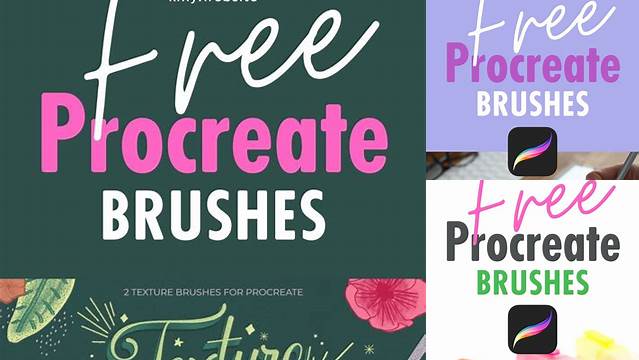
Free Procreate Font Brushes: Download Now!
Hey guys! Ever wanted to add some seriously cool lettering to your Procreate artwork? You're in the right place! We're diving deep into the world of Procreate font brushes free download, and trust me, there's a treasure trove of amazing resources out there just waiting for you. Whether you're a seasoned digital artist or just starting out, having the right font brushes can seriously level up your designs. We'll explore where to find these gems, how to install them, and even give you some tips on using them effectively. So, grab your Apple Pencil and let's get started!
1. Understanding Procreate Brushes for Fonts
Let's kick things off by understanding what we mean by "Procreate brushes for fonts.” Unlike traditional font files that you install on your system, these brushes allow you to hand-letter text directly in Procreate. Think of it as calligraphy, but in the digital world. Procreate font brushes free download options come in various styles, from elegant scripts to bold sans-serifs, each offering a unique texture and feel. This gives you incredible control over the look of your text, making it perfect for logos, illustrations, and more. Using brushes for fonts in Procreate allows for customization that you simply can't achieve with standard digital fonts. You can adjust pressure sensitivity, stroke width, and even add textures, giving your lettering a truly unique and handmade feel. This approach is especially powerful for projects where you want to convey a personal touch or a sense of authenticity. The flexibility that these brushes offer makes them an essential tool in any digital artist's toolkit.
2. Where to Find Free Procreate Font Brushes
Now for the fun part – where do you actually find these amazing brushes? The good news is, there are tons of resources online offering Procreate font brushes free download. Websites like Creative Market, Brush Galaxy, and even individual artist blogs are great places to start. Keep an eye out for freebie sections or promotional offers. Social media platforms like Instagram and Pinterest are also goldmines for discovering free brushes. Many artists share their creations as freebies to build their following. Always double-check the licensing terms before using any brush, especially for commercial projects. You want to make sure you're allowed to use it in the way you intend. A little research upfront can save you a lot of headaches down the road. Also, consider joining online communities and forums dedicated to Procreate users. These communities often share tips, resources, and even create their own brushes to share with the group. It's a fantastic way to connect with fellow artists and expand your brush collection.
4. Best Free Script Font Brushes for Procreate
For those elegant, flowing lettering styles, script fonts are a must-have. There are some fantastic Procreate font brushes free download options available in this category. Look for brushes that mimic traditional calligraphy pens or brush pens. These will give you those beautiful, varied strokes that are characteristic of script lettering. Some popular styles include calligraphy scripts, brush scripts, and even more modern, handwritten-style scripts. When using script brushes, pay attention to the connections between letters. A smooth, flowing connection is key to creating a visually appealing script. Experiment with different pressures and angles to achieve the desired effect. Don't be afraid to practice – script lettering takes some time to master! You can also find brushes that include ligatures and swashes, which are decorative elements that add extra flair to your script lettering. These can be a great way to add personality and uniqueness to your designs. Just remember to use them sparingly, as too many ligatures and swashes can make your lettering look cluttered.
5. Top Free Sans-Serif Font Brushes for Procreate
Need something clean and modern? Sans-serif fonts are your go-to. Luckily, there's a great selection of Procreate font brushes free download in this category too. Sans-serif fonts are characterized by their lack of serifs (the little feet or strokes at the end of the letters), giving them a more streamlined appearance. These fonts are perfect for logos, headings, and body text. Look for brushes that create crisp, clean lines and consistent stroke widths. Some popular sans-serif styles include geometric sans-serifs, humanist sans-serifs, and even more condensed or extended styles. When using sans-serif brushes, pay attention to the spacing between letters. Consistent spacing is crucial for readability and a professional look. Experiment with different weights and styles to find the perfect brush for your project. You can also use sans-serif brushes to create interesting graphic elements or patterns. Their clean lines and shapes make them ideal for creating abstract designs or adding visual interest to your layouts.
6. Free Serif Font Brushes for Procreate: A Touch of Elegance
If you're aiming for a classic or traditional feel, serif fonts are the way to go. And yes, you can find amazing Procreate font brushes free download that capture the elegance of serif typefaces. Serif fonts are characterized by the small decorative strokes (serifs) at the ends of the letters. These serifs add a touch of formality and sophistication, making them perfect for headings, body text, and designs that need a timeless quality. When searching for serif brushes, look for options that mimic the look of traditional typefaces like Times New Roman or Garamond. Pay attention to the details of the serifs – their shape and size can greatly influence the overall look of your lettering. Using serif brushes in Procreate allows you to create a hand-lettered version of a classic typeface, giving your work a unique and personal touch. Experiment with different weights and styles to find the perfect serif brush for your project. You can also try combining serif lettering with other design elements, such as illustrations or textures, to create a visually rich and interesting composition.
7. Calligraphy Brushes for Procreate: Mastering the Art
For the aspiring calligraphers out there, Procreate is a fantastic platform. And guess what? You can get your hands on some incredible Procreate font brushes free download specifically designed for calligraphy. Calligraphy is the art of beautiful writing, and it involves using specific tools and techniques to create elegant letterforms. In the digital world, calligraphy brushes mimic the look and feel of traditional calligraphy pens, allowing you to create stunning lettering directly on your iPad. When searching for calligraphy brushes, look for options that offer varying stroke widths based on pressure. This is a key feature of calligraphy pens, and it's essential for creating the characteristic thick and thin strokes of calligraphic lettering. Experiment with different brush tips and styles to find the ones that suit your personal style and the project you're working on. Learning calligraphy takes time and practice, but with the right brushes and some dedication, you can create beautiful and expressive lettering in Procreate. Don't be afraid to experiment with different techniques and styles, and most importantly, have fun!
8. Brush Lettering Techniques in Procreate
So you've got your brushes, now it's time to talk technique! Brush lettering in Procreate is all about pressure control. The harder you press, the thicker the stroke. This is what gives brush lettering its signature look. Practice varying your pressure to create those thick downstrokes and thin upstrokes. Think about the natural flow of your hand and the way traditional calligraphy pens work. Experiment with different brush settings in Procreate, such as StreamLine and Size Jitter, to fine-tune the way your brush behaves. StreamLine helps smooth out your strokes, while Size Jitter adds a bit of randomness to the stroke width. There are tons of tutorials online that can guide you through different brush lettering techniques. Don't be afraid to try new things and develop your own unique style. Remember, practice makes perfect! The more you experiment with different brushes and techniques, the better you'll become at creating beautiful and expressive lettering in Procreate. And yes, finding Procreate font brushes free download is the first step, but mastering the technique is where the magic truly happens.
9. Creating Custom Font Brushes in Procreate
Feeling adventurous? Why not create your own font brushes in Procreate? It's easier than you might think! You can start by modifying existing brushes or create one from scratch. Experiment with different shapes, textures, and settings to achieve the look you want. The Brush Studio in Procreate is your playground for creating custom brushes. You can adjust everything from the shape and grain of the brush to its pressure sensitivity and rendering mode. Think about the type of lettering you want to create and design your brush accordingly. Do you want a smooth, flowing script brush? Or a textured, gritty brush for a more vintage feel? You can even import your own textures and shapes to create truly unique brushes. Once you've created your custom brush, don't forget to save it to your Brush Library so you can use it in future projects. Creating your own brushes is a fantastic way to expand your creative possibilities and develop your personal style. Plus, you can even share your creations with the Procreate community! So, if you've been searching for Procreate font brushes free download but haven't found exactly what you need, making your own might be the answer!
10. Mixing and Matching Font Brushes for Unique Designs
One of the coolest things about using font brushes in Procreate is the ability to mix and match different styles. Try combining a script brush for headings with a sans-serif brush for body text. This creates visual contrast and makes your designs more interesting. Experiment with different color palettes and textures to further enhance the look. Don't be afraid to break the rules and try unexpected combinations. You might be surprised at what you discover. Think about the overall mood and message you want to convey with your design. Different font combinations can evoke different feelings and create different effects. For example, a combination of a bold sans-serif and a delicate script can create a modern yet elegant look. Or, a pairing of two contrasting serif fonts can add a touch of vintage charm. When mixing and matching font brushes, pay attention to the hierarchy of your text. Use different sizes and weights to create visual emphasis and guide the viewer's eye. And of course, always ensure that your lettering is legible, no matter how creative you get! Remember those Procreate font brushes free download you found? They're your building blocks for endless design possibilities!
11. Using Textures with Font Brushes in Procreate
Adding textures to your lettering can take it to the next level. Try using textured brushes or overlaying textures on top of your lettering. This can add depth, dimension, and a unique visual interest to your designs. Experiment with different textures, such as paper, canvas, or even grunge textures. You can find free texture packs online or create your own by scanning real-world materials. When using textures, think about the overall style and mood you want to create. A subtle texture can add a touch of realism, while a bold texture can create a more dramatic effect. You can also use textures to create a vintage or distressed look. Experiment with different blending modes in Procreate to see how the texture interacts with your lettering. Blending modes like Multiply, Overlay, and Soft Light can create interesting effects. And of course, don't forget to adjust the opacity of your texture layer to control the intensity of the texture. Using textures with your Procreate font brushes free download options is a fantastic way to add personality and originality to your work.
12. Color Palettes for Procreate Lettering
The colors you choose for your lettering can have a huge impact on the overall look and feel of your design. Experiment with different color palettes to find the perfect combination for your project. Consider the mood and message you want to convey and choose colors that reflect that. For example, warm colors like reds and oranges can evoke feelings of energy and excitement, while cool colors like blues and greens can create a sense of calm and serenity. You can find inspiration for color palettes online using tools like Adobe Color or Coolors. These tools allow you to create custom palettes or browse existing ones. Procreate also has its own color palette features, allowing you to save your favorite colors and create custom palettes within the app. When choosing colors for your lettering, think about contrast. High contrast colors will make your lettering stand out, while low contrast colors can create a more subtle effect. You can also use color to create visual hierarchy, highlighting important words or phrases. So, you've found your Procreate font brushes free download options, now think about how color can enhance your lettering and bring your designs to life!
13. Procreate Lettering for Logos and Branding
Hand-lettered logos and branding elements are super popular right now, and Procreate is an awesome tool for creating them. Using font brushes, you can create unique and memorable logos that stand out from the crowd. When designing a logo, think about the brand's personality and values. Choose a font style that reflects those qualities. For example, a script font might be perfect for a brand that wants to convey elegance and sophistication, while a bold sans-serif font might be a better choice for a modern and energetic brand. Keep your logo design simple and memorable. A logo should be easily recognizable and scalable, meaning it should look good at both large and small sizes. Experiment with different layouts and compositions to find the most effective way to present your brand's name. Consider the colors you use in your logo. Colors can evoke emotions and create associations, so choose colors that align with your brand's message. And of course, make sure your logo is legible! Even the most beautiful lettering won't be effective if people can't read it. So, grab those Procreate font brushes free download, and start creating some killer logos!
14. Creating Digital Typography Art in Procreate
Procreate is a fantastic tool for creating digital typography art. Typography art is the art of arranging type in a visually appealing and expressive way. Using font brushes, you can create stunning typographic compositions that are both beautiful and meaningful. When creating typography art, think about the message you want to convey. Choose words or phrases that resonate with you and that you want to share with others. Experiment with different layouts and compositions to find the most visually interesting way to arrange your text. Consider the size and weight of your lettering. Different sizes and weights can create visual hierarchy and emphasize certain words or phrases. Use color to add visual interest and create a mood. Experiment with different color palettes and blending modes to achieve the desired effect. Don't be afraid to add other design elements, such as illustrations or textures, to your typography art. These elements can enhance the meaning and impact of your message. And most importantly, have fun and let your creativity flow! Those Procreate font brushes free download are your keys to unlocking a world of typographic expression.
15. Procreate Lettering for Social Media Graphics
If you're looking to create eye-catching social media graphics, Procreate lettering is the way to go. Hand-lettered graphics can help your posts stand out in a crowded feed. When designing social media graphics, think about the platform you're designing for. Different platforms have different size requirements and visual styles. For example, Instagram graphics are often square or vertical, while Twitter graphics are typically horizontal. Keep your graphics clean and simple. Social media users are often scrolling quickly, so you want to capture their attention with a clear and concise message. Use bold lettering and strong colors to make your graphics pop. Experiment with different layouts and compositions to find the most visually appealing arrangement. Add your branding elements, such as your logo and website address, to your graphics. This will help people recognize your brand and learn more about your work. Use a consistent style across all your social media graphics to create a cohesive brand identity. And of course, make sure your lettering is legible on all devices, from smartphones to desktops. So, those Procreate font brushes free download you've been collecting? They're about to become your secret weapon for social media domination!
16. Lettering Quotes in Procreate: Inspiration and Motivation
Lettering quotes is a fantastic way to spread inspiration and motivation. Procreate's font brushes make it easy to create beautiful and shareable quote art. Choose quotes that resonate with you and that you think will inspire others. Quotes about positivity, perseverance, and self-love are always popular. Experiment with different lettering styles to find the one that best suits the quote and the message you want to convey. A flowing script font might be perfect for a romantic quote, while a bold sans-serif font might be more appropriate for an empowering quote. Use color to add visual interest and create a mood. Consider the overall tone of the quote and choose colors that reflect that. For example, bright and cheerful colors might be a good choice for a motivational quote, while calming and muted colors might be better for an inspirational quote. Add decorative elements, such as flourishes or illustrations, to enhance the look of your quote art. These elements can add personality and visual interest to your design. Share your quote art on social media to inspire others. Use relevant hashtags to reach a wider audience. And don't forget to credit the original author of the quote! So, those Procreate font brushes free download you've discovered? Use them to spread some positivity and inspiration!
17. Procreate Lettering for Greeting Cards
Creating personalized greeting cards in Procreate is a thoughtful and creative way to show someone you care. And with font brushes, you can add a unique hand-lettered touch. Think about the occasion and the recipient when designing your greeting card. Choose a lettering style that reflects the occasion and the person you're sending the card to. For example, a script font might be perfect for a wedding card, while a fun and playful font might be more appropriate for a birthday card. Choose a color palette that is appropriate for the occasion. Festive colors are great for holidays, while more subdued colors might be better for sympathy cards. Add personal touches to your greeting card, such as the recipient's name or a special message. You can also add illustrations or other design elements to make your card even more unique. Print your greeting card on high-quality paper for a professional finish. You can also have your cards printed at a local print shop. So, next time you need a card, skip the store and use those Procreate font brushes free download to create something truly special!
18. Lettering for Procreate Illustrations
Adding lettering to your Procreate illustrations can enhance your artwork and create a more engaging visual experience. Think about the overall style and mood of your illustration when choosing a lettering style. The lettering should complement the illustration, not compete with it. For example, a whimsical illustration might benefit from a playful script font, while a more serious illustration might call for a classic serif font. Position your lettering carefully within your illustration. Consider the composition and balance of your artwork. You want the lettering to be integrated seamlessly into the overall design. Use color and contrast to make your lettering stand out. You can also use shadows and highlights to add depth and dimension to your lettering. Experiment with different lettering techniques, such as outlining or layering, to create interesting visual effects. Use lettering to tell a story or add context to your illustration. You can also use lettering to create titles, captions, or labels. So, if you've been searching for ways to elevate your illustrations, remember those Procreate font brushes free download and how they can add that perfect finishing touch!
19. Animating Procreate Lettering: Bringing Words to Life
Animating your Procreate lettering can add a dynamic and engaging element to your designs. Procreate's animation features, combined with your font brushes, allow you to bring your words to life. There are several different techniques you can use to animate your lettering, such as frame-by-frame animation, motion graphics, and stop-motion animation. Frame-by-frame animation involves drawing each frame of your animation individually. This technique gives you the most control over your animation, but it can also be time-consuming. Motion graphics involve using software to create animated text and graphics. This technique is often used for creating intros, outros, and other types of video content. Stop-motion animation involves taking a series of still photographs of your lettering and then stringing them together to create the illusion of movement. This technique can be used to create fun and whimsical animations. Experiment with different animation styles and techniques to find the ones that best suit your project. Consider the message you want to convey and choose an animation style that supports that message. Use color and sound to enhance your animation. Add music or sound effects to make your animation more engaging. Remember, practice makes perfect! The more you experiment with animating your lettering, the better you'll become. So, why not take those Procreate font brushes free download for a spin in the world of animation?
20. Lettering on Procreate Photos: Adding a Personal Touch
Adding lettering to your Procreate photos can be a fun and creative way to personalize your images. Whether you're creating social media posts, cards, or just want to add a personal touch to your photos, lettering is a great option. Choose a lettering style that complements the style and mood of your photo. For example, a handwritten script font might be a good choice for a casual photo, while a more formal serif font might be better suited for a portrait. Consider the composition of your photo when placing your lettering. You want the lettering to be integrated seamlessly into the overall design. Use color and contrast to make your lettering stand out. You can also use shadows and highlights to add depth and dimension to your lettering. Experiment with different lettering techniques, such as outlining or layering, to create interesting visual effects. Add a quote, caption, or personal message to your photo. Lettering can be used to convey a message, tell a story, or simply add a personal touch. Share your lettered photos on social media or print them out to create personalized gifts. So, grab a favorite photo and see how those Procreate font brushes free download can transform it!
21. Best Practices for Procreate Font Brush Usage
To get the most out of your Procreate font brushes, there are a few best practices to keep in mind. First, always use high-resolution canvases. This will ensure that your lettering looks crisp and clean, even when zoomed in. Second, experiment with different brush settings. Procreate offers a wide range of brush settings that you can adjust to fine-tune the way your brushes behave. Third, use pressure sensitivity to your advantage. Pressure sensitivity allows you to create varying stroke widths, which is essential for creating dynamic and expressive lettering. Fourth, practice regularly. The more you practice, the better you'll become at using Procreate font brushes. Fifth, don't be afraid to experiment. Try different brushes, techniques, and styles to find what works best for you. Sixth, save your work frequently. This will prevent you from losing your progress if something goes wrong. Seventh, use layers to organize your artwork. This will make it easier to edit and adjust your lettering. Eighth, use clipping masks to add textures and patterns to your lettering. Ninth, use blending modes to create interesting visual effects. Tenth, share your work with others and get feedback. This will help you improve your skills and learn new techniques. And finally, remember that finding the best Procreate font brushes free download is only the first step – it's how you use them that truly matters!
22. Troubleshooting Common Procreate Brush Issues
Even with the best brushes, you might occasionally run into issues with your Procreate font brushes. Here are some common problems and how to fix them. Problem: Brush isn't showing up in your Brush Library. Solution: Make sure you've downloaded the brush file correctly. If it's a .brushset
file, it should automatically import when you open it. If it's a .brush
file, you may need to import it manually by tapping the "+" icon in the Brush Library and selecting "Import.” Problem: Brush strokes are jagged or pixelated. Solution: Make sure you're working on a high-resolution canvas. A canvas size of at least 3000 x 3000 pixels is recommended for lettering. Problem: Brush is too laggy or slow. Solution: Try reducing the number of layers in your artwork. You can also try clearing your Procreate cache in the app's settings. Problem: Brush isn't behaving as expected. Solution: Check your brush settings. Experiment with different settings, such as StreamLine and Size Jitter, to fine-tune the way your brush behaves. Problem: Brush is too big or too small. Solution: Adjust the brush size using the size slider in the Brush panel. You can also use the pressure sensitivity of your Apple Pencil to control the brush size. If you've tried all these solutions and you're still having problems, try restarting Procreate or your iPad. Sometimes a simple restart can fix unexpected issues. And remember, if you've found some amazing Procreate font brushes free download but they're not working perfectly, a little troubleshooting can go a long way!
23. Procreate Font Brushes for Beginners
If you're just starting out with Procreate lettering, it can feel a little overwhelming. But don't worry, it's totally achievable! Here are some tips and advice for beginners. First, start with simple brushes. Don't try to tackle complex brushes with lots of settings right away. Look for basic monoline brushes or brushes with minimal texture. These will be easier to control and will help you get a feel for lettering in Procreate. Second, practice basic strokes. Before you start writing words, practice your upstrokes, downstrokes, and curves. This will help you develop muscle memory and improve your lettering skills. Third, use guidelines. Guidelines can help you maintain consistent letter heights and spacing. You can create guidelines in Procreate by drawing straight lines on a separate layer. Fourth, start with lowercase letters. Lowercase letters are generally easier to letter than uppercase letters. Fifth, be patient. Learning lettering takes time and practice. Don't get discouraged if you don't see results right away. Sixth, watch tutorials. There are tons of great Procreate lettering tutorials online. Watch tutorials to learn new techniques and get inspiration. Seventh, join a community. There are many online communities of Procreate artists where you can share your work, get feedback, and learn from others. Eighth, don't be afraid to experiment. Try different brushes, techniques, and styles to find what you enjoy. Ninth, have fun! Lettering should be a fun and creative activity. And tenth, remember that those Procreate font brushes free download options are a fantastic starting point – but the real magic happens with practice and experimentation!
24. Advanced Techniques for Procreate Lettering
Once you've mastered the basics of Procreate lettering, you can start exploring some more advanced techniques. Adding shadows and highlights: Adding shadows and highlights to your lettering can create depth and dimension. You can create shadows and highlights by duplicating your lettering layer, offsetting it slightly, and changing the color. Creating gradients: Gradients can add visual interest to your lettering. You can create gradients by using the Gradient tool in Procreate or by using gradient brushes. Using textures: Textures can add a unique and tactile feel to your lettering. You can add textures by using textured brushes or by importing texture images and using clipping masks. Creating 3D lettering: You can create 3D lettering effects by using Procreate's perspective tools or by drawing your lettering from different angles. Adding flourishes and embellishments: Flourishes and embellishments can add personality and elegance to your lettering. You can create flourishes and embellishments using brushes or by drawing them by hand. Using lettering to create illustrations: You can use lettering to create illustrations by incorporating words and phrases into your artwork. Creating animated lettering: You can animate your lettering using Procreate's animation features or by using other animation software. These advanced techniques can take your Procreate lettering to the next level. Don't be afraid to experiment and try new things. The possibilities are endless! And remember, finding awesome Procreate font brushes free download is just the beginning – these techniques will help you unleash their full potential!
25. Commercial Use of Free Procreate Font Brushes
One of the most important things to consider when downloading Procreate font brushes free download is the licensing terms. Not all free brushes are created equal, and some may have restrictions on their commercial use. Commercial use refers to using the brushes in projects that you intend to sell or profit from, such as logos, branding materials, or merchandise. Before using any free brush in a commercial project, carefully read the licensing terms provided by the creator. Some creators may allow commercial use with attribution (meaning you need to credit them in your work), while others may prohibit commercial use altogether. If the licensing terms are unclear, it's always best to contact the creator directly and ask for clarification. Using a brush without the proper license can result in copyright infringement, which can have serious legal and financial consequences. If you need a brush for commercial use and the free options don't meet your needs, consider purchasing a commercial license for a premium brush. This will give you the peace of mind knowing that you're using the brush legally and ethically. There are many websites and marketplaces that offer high-quality Procreate brushes with commercial licenses. Investing in these brushes can be a worthwhile expense for professional designers and artists.
26. Organizing Your Procreate Brush Library
As you download more and more Procreate font brushes free download, your Brush Library can quickly become cluttered and difficult to navigate. Organizing your brushes is essential for maintaining a smooth workflow and finding the brushes you need quickly. Procreate allows you to create custom brush sets to organize your brushes into categories. You can create sets for different font styles (e.g., script, sans-serif, serif), different projects, or different artists. To create a new brush set, tap the "+" icon at the top of the Brush Library and select "New Set.” Give your set a descriptive name so you can easily identify it later. You can then drag and drop brushes into your new set. You can also rename existing brush sets by tapping on the set name. Another helpful tip for organizing your brushes is to use descriptive brush names. Rename brushes with clear and concise names that reflect their style or function. This will make it easier to find the right brush when you're working on a project. You can also use emojis in your brush names to add visual cues and make your library more organized. For example, you could use a cursive emoji for script brushes or a bold emoji for sans-serif brushes. Regularly review your Brush Library and remove any brushes that you no longer use. This will help keep your library clean and prevent it from becoming overwhelming. Organizing your Procreate Brush Library may seem like a small task, but it can save you a lot of time and frustration in the long run.
27. The Future of Procreate Font Brushes
The world of Procreate font brushes is constantly evolving, with new brushes and techniques emerging all the time. As Procreate continues to develop and add new features, we can expect to see even more innovative and versatile brushes become available. One trend we're likely to see is the increasing use of dynamic brushes. Dynamic brushes respond to factors like tilt and rotation, allowing for even more expressive and natural-looking lettering. We may also see the development of more brushes that mimic the look and feel of traditional calligraphy tools, such as broad-edged pens and pointed pens. Another exciting development is the potential for AI-powered brushes. AI could be used to create brushes that automatically adjust to your lettering style or generate unique textures and effects. The rise of virtual reality and augmented reality could also have a significant impact on Procreate font brushes. Imagine being able to letter in 3D space or create brushes that interact with the real world. The future of Procreate font brushes is bright and full of possibilities. As artists continue to push the boundaries of what's possible, we can expect to see even more amazing Procreate font brushes free download and premium options become available. Staying up-to-date with the latest trends and techniques will help you take your lettering skills to the next level.
28. Procreate Font Brushes vs. Traditional Fonts
When it comes to creating text in Procreate, you have two main options: using font brushes or using traditional fonts. Both options have their own advantages and disadvantages, and the best choice for you will depend on your specific needs and preferences. Procreate Font Brushes: Advantages: Offer a unique, hand-lettered look. Provide a high level of customization. Allow for varying stroke widths and textures. Ideal for creating logos, illustrations, and expressive lettering. Disadvantages: Can be more time-consuming than using traditional fonts. Require practice and skill to master. May not be suitable for large amounts of text. Traditional Fonts: Advantages: Easy to use and readily available. Suitable for large amounts of text. Provide a consistent and professional look. Disadvantages: Can lack the personality and uniqueness of hand-lettered text. Offer limited customization options. May not be suitable for all design styles. If you're looking for a quick and easy way to add text to your artwork, traditional fonts are a great option. However, if you want to create truly unique and expressive lettering, Procreate font brushes are the way to go. They allow you to capture the beauty and imperfections of hand-lettering, adding a personal touch to your designs. And with so many fantastic Procreate font brushes free download available, there's no reason not to give them a try!
29. Inspiration for Procreate Lettering Projects
Feeling stuck for ideas? Here's some inspiration to get your creative juices flowing for Procreate lettering projects: Quote Art: Lettering your favorite inspirational quotes is a classic and rewarding project. Greeting Cards: Create personalized greeting cards for birthdays, holidays, or other special occasions. Social Media Graphics: Design eye-catching graphics for your social media posts. Logos and Branding: Develop a unique logo or branding materials for your business or personal brand. Illustrations: Incorporate lettering into your illustrations to add text and context. Typography Art: Create stunning typography compositions that showcase your lettering skills. Photo Overlays: Add lettering to your photos to create personalized and memorable images. Home Decor: Design and letter wall art or other home decor items. Gifts: Create personalized gifts for friends and family, such as mugs, t-shirts, or phone cases. Practice Projects: Challenge yourself to letter different words, phrases, or alphabets to improve your skills. Look for inspiration in the world around you. Pay attention to typography in books, magazines, and websites. Follow lettering artists on social media and study their work. Visit art museums and galleries to see examples of hand-lettering and calligraphy. The more you immerse yourself in the world of lettering, the more ideas you'll have. And remember, even if you've downloaded the best Procreate font brushes free download, it's your imagination that will bring your projects to life!
30. Sharing and Selling Your Procreate Lettering Art
Once you've created some amazing Procreate lettering art, you might be wondering how to share it with the world or even sell it. There are many platforms and avenues for sharing and selling your work, both online and offline. Sharing Your Work: Social Media: Platforms like Instagram, Pinterest, and Behance are great for showcasing your lettering art and connecting with other artists. Online Communities: Join Procreate-specific forums and groups to share your work and get feedback. Personal Website or Blog: Create a website or blog to display your portfolio and share your process. Selling Your Work: Online Marketplaces: Websites like Etsy, Creative Market, and Society6 allow you to sell your lettering art as prints, digital downloads, or merchandise. Print-on-Demand Services: Services like Redbubble and Teespring let you upload your designs and sell them on a variety of products without having to handle inventory or shipping. Local Art Fairs and Markets: Participate in local art fairs and markets to sell your work in person. Commissions: Offer custom lettering services to clients for logos, branding materials, or other projects. When sharing or selling your work, it's important to protect your intellectual property. Consider watermarking your images and registering your copyrights. Be transparent about your pricing and licensing terms. And most importantly, be professional and respectful in your interactions with customers and collaborators. Sharing and selling your Procreate lettering art can be a rewarding way to express your creativity and earn income. So, take those skills you've honed with your Procreate font brushes free download, and share your art with the world!